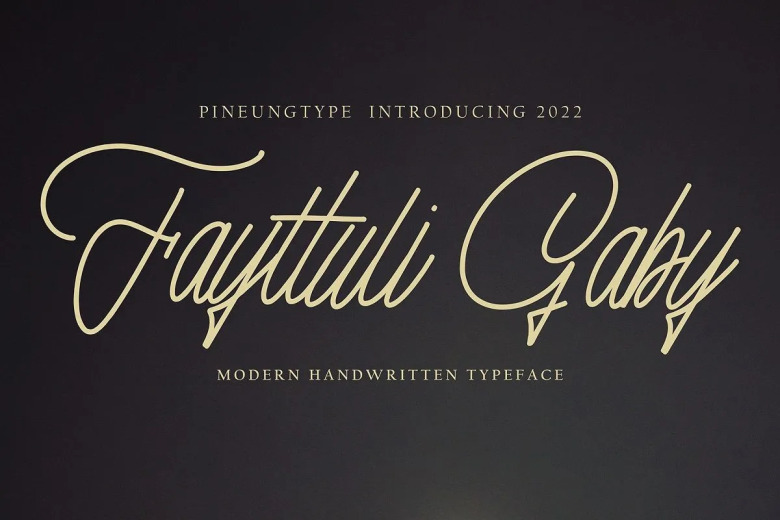
Fayttuli Gaby Font
Fayttuli Gaby is a fabulous Script Handwritten Font. This font is neatly crafted and highly detailed. Whatever the topic, this font will be a wonderful asset to your font library, as it has the potential to enhance any creation.
Fayttuli Gaby Handwritten Script Font